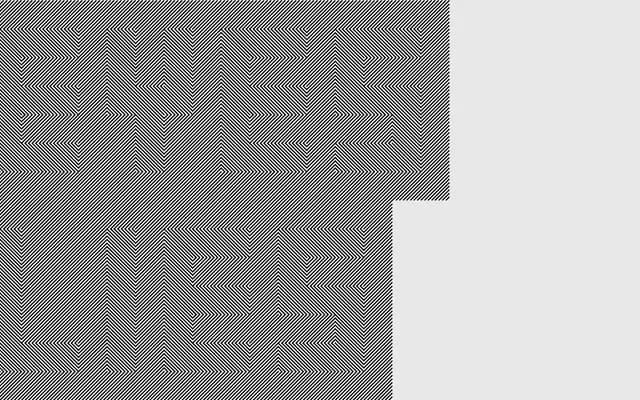
Eyes Lies
A2-Type · 2004
A single-weight all-caps display face created for the Hayward Gallery's 2004 'Eye, Lies and Illusions' exhibition, drawing on Op Art and pre-cinematic optical devices.
Designed in 2004 alongside A2-Type's Archi typeface for the Hayward Gallery show, it takes its visual cues from optical toys and devices shown in the exhibition as well as the Op Art movement. The result is a headline-only face, uppercase throughout, suited to short bursts of display text where visual tension is wanted. A single Regular weight is available with no italic or condensed variants.
A single-weight all-caps display face drawn from Op Art and pre-cinematic optical devices, with no text weight or italic — purely a headline and display typeface.